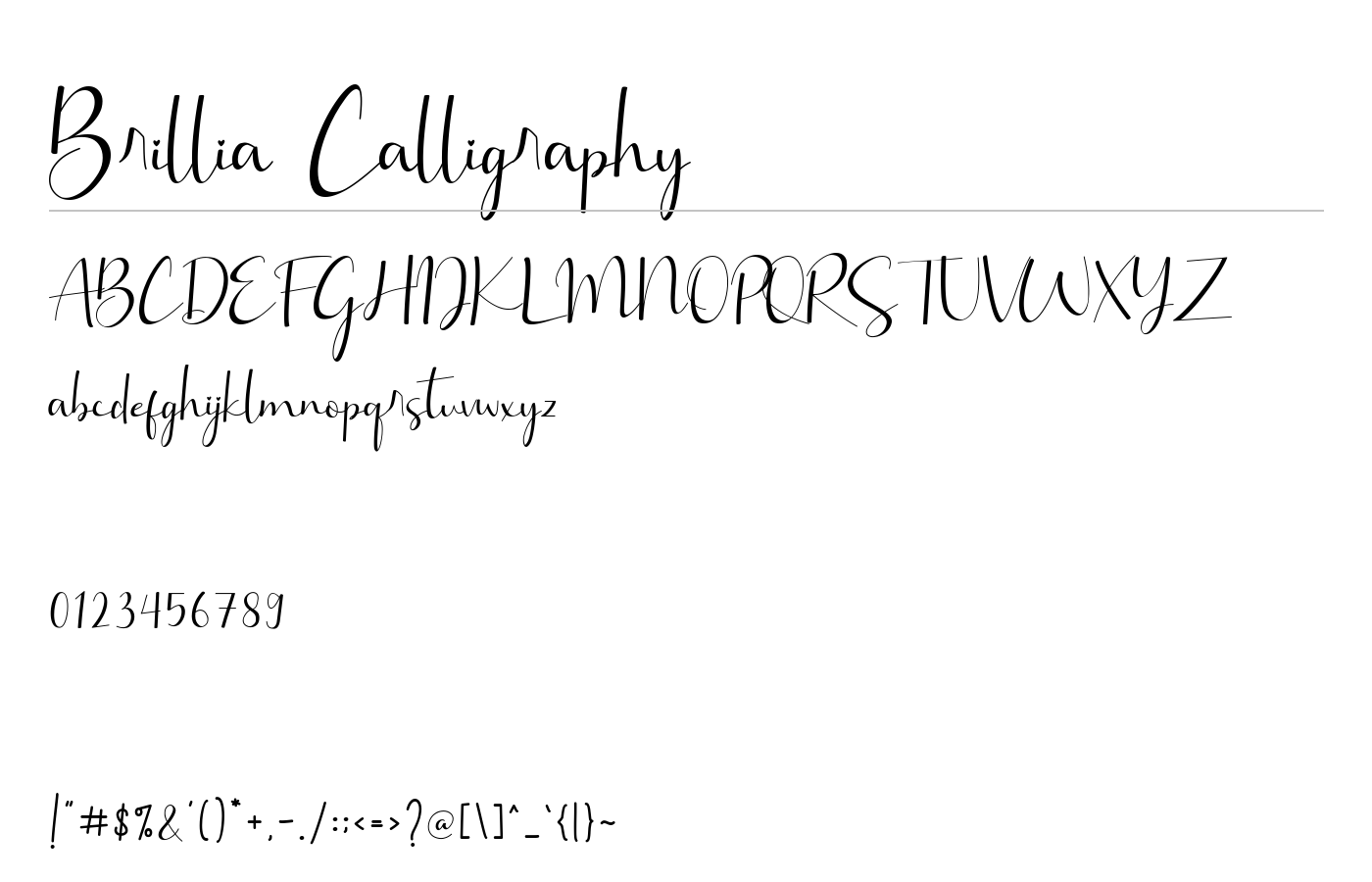
Brillia Calligraphy is a delicate and elegant script font that captures a handwritten, artistic feel with its slender, graceful strokes and varying line thickness. Its tall, airy letterforms combine playfulness with sophistication, making it perfect for wedding invitations, branding, and decorative headlines where a personal, stylish touch is desired. This font’s refined yet lively character brings a sense of charm and creativity to any design.
Brillia Calligraphy Font
About Brillia Calligraphy Font
| Font family | Brillia Calligraphy Font |
| Designer | AEN Creative Studio 2020 |